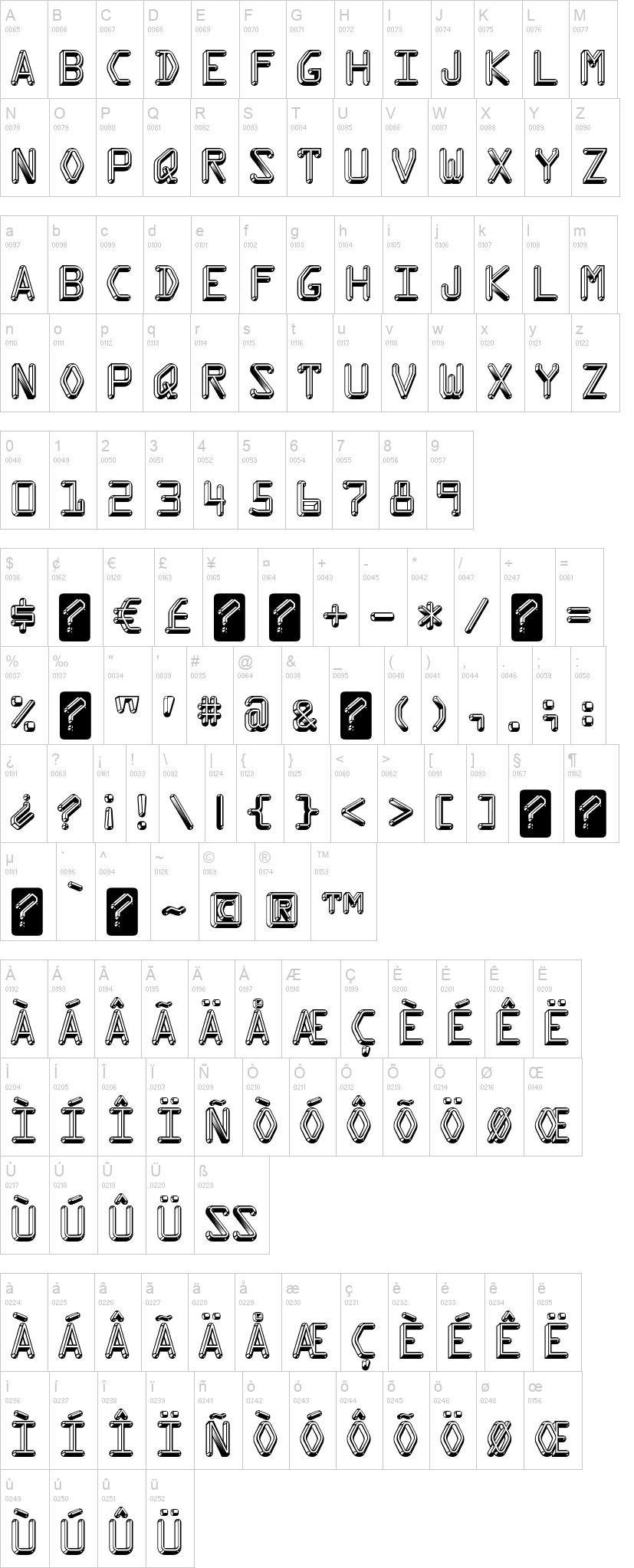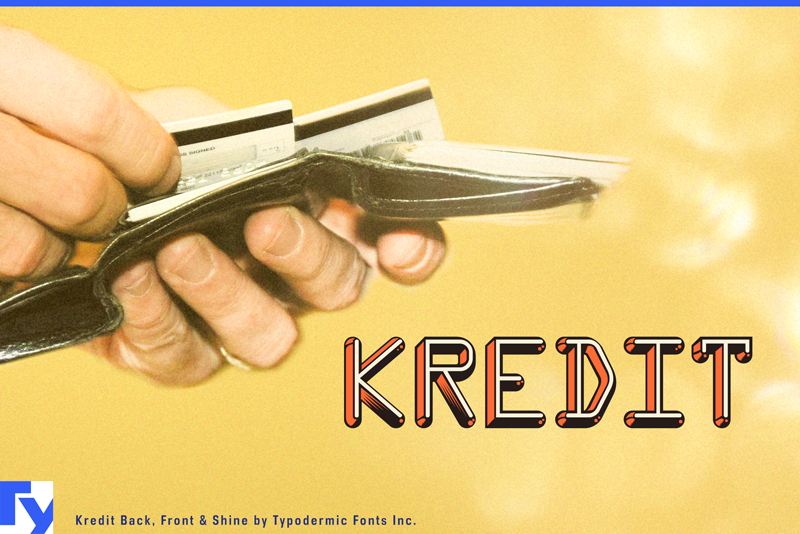
Kredit Back.otfKredit Front.otfKredit Shine.otfNote of the authorKredit is an OCR-A imbued credit card font. Stack the back, front, and shine layers or use the translucent regular style. Experiment with colored layer combinations and offsets. Most Latin-based European writing systems are supported, including the following languages. Afaan Oromo, Afar, Afrikaans, Albanian, Alsatian, Aromanian, Aymara, Bashkir (Latin), Basque, Belarusian (Latin), Bemba, Bikol, Bosnian, Breton, Cape Verdean, Creole, Catalan, Cebuano, Chamorro, Chavacano, Chichewa, Crimean Tatar (Latin), Croatian, Czech, Danish, Dawan, Dholuo, Dutch, English, Estonian, Faroese, Fijian, Filipino, Finnish, French, Frisian, Friulian, Gagauz (Latin), Galician, Ganda, Genoese, German, Greenlandic, Guadeloupean Creole, Haitian Creole, Hawaiian, Hiligaynon, Hungarian, Icelandic, Ilocano, Indonesian, Irish, Italian, Jamaican, Kaqchikel, Karakalpak (Latin), Kashubian, Kikongo, Kinyarwanda, Kirundi, Kurdish (Latin), Latvian, Lithuanian, Lombard, Low Saxon, Luxembourgish, Maasai, Makhuwa, Malay, Maltese, Māori, Moldovan, Montenegrin, Ndebele, Neapolitan, Norwegian, Novial, Occitan, Ossetian (Latin), Papiamento, Piedmontese, Polish, Portuguese, Quechua, Rarotongan, Romanian, Romansh, Sami, Sango, Saramaccan, Sardinian, Scottish Gaelic, Serbian (Latin), Shona, Sicilian, Silesian, Slovak, Slovenian, Somali, Sorbian, Sotho, Spanish, Swahili, Swazi, Swedish, Tagalog, Tahitian, Tetum, Tongan, Tshiluba, Tsonga, Tswana, Tumbuka, Turkish, Turkmen (Latin), Tuvaluan, Uzbek (Latin), Venetian, Vepsian, Võro, Walloon, Waray-Waray, Wayuu, Welsh, Wolof, Xhosa, Yapese, Zapotec Zulu and Zuni.